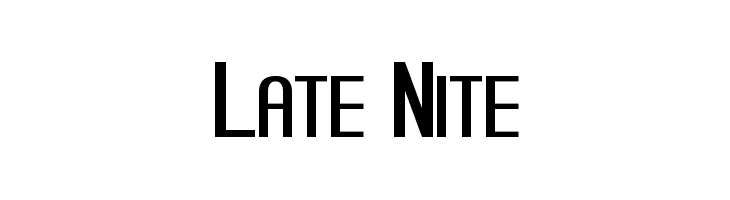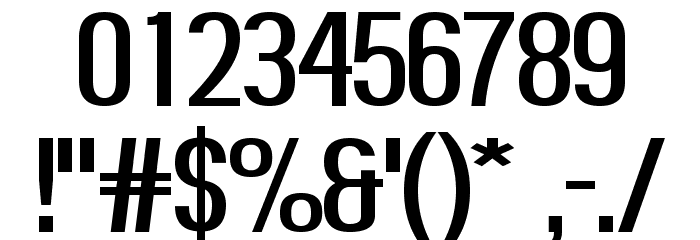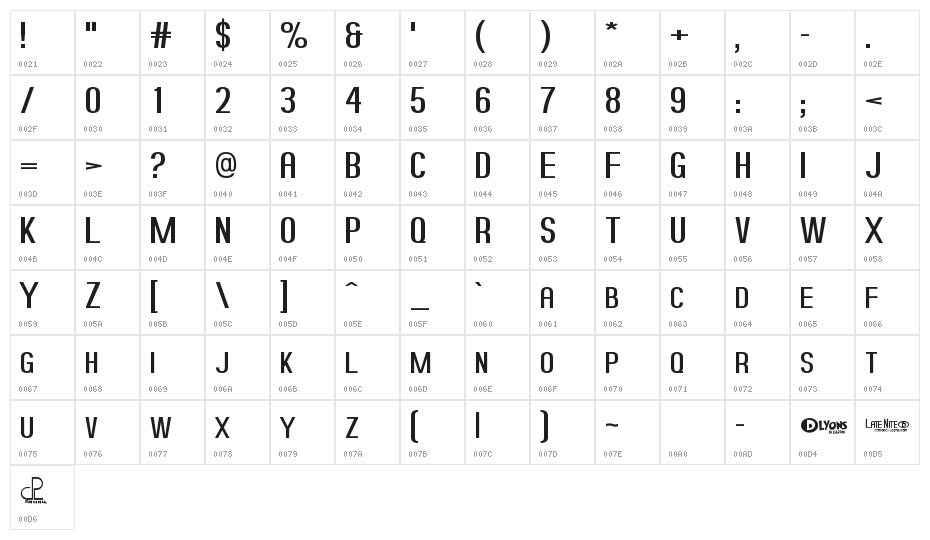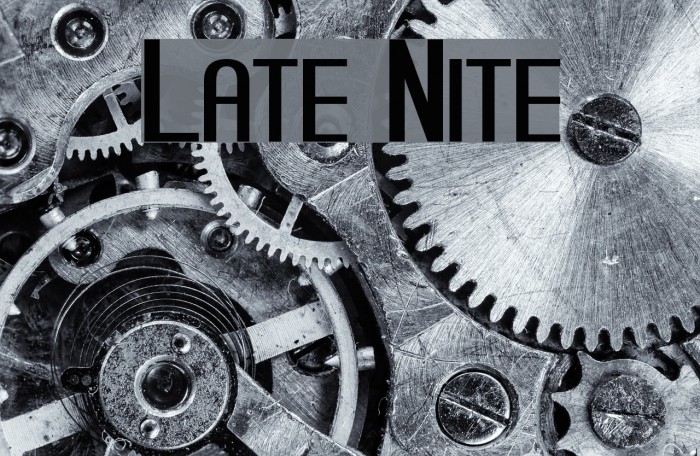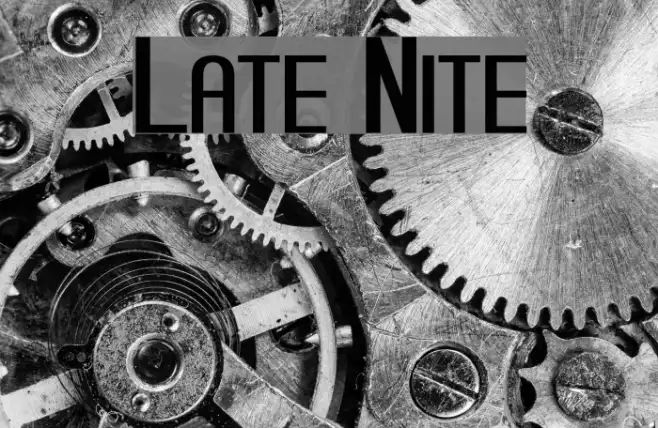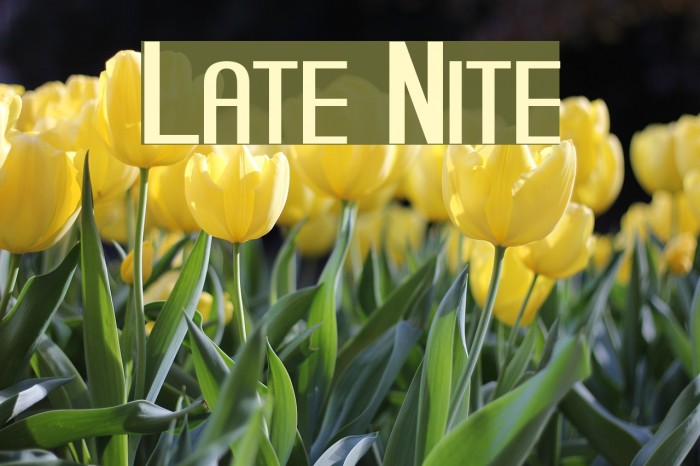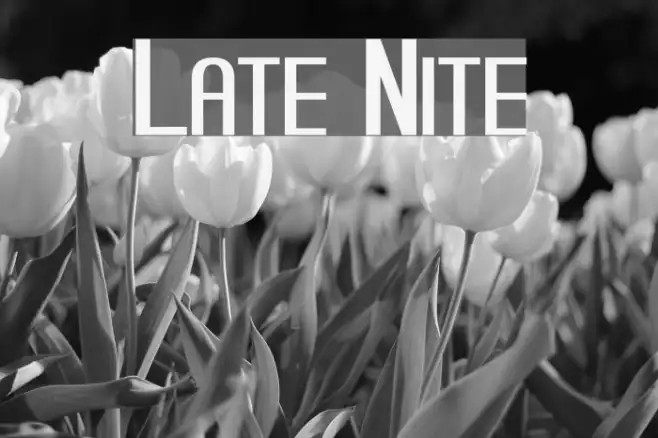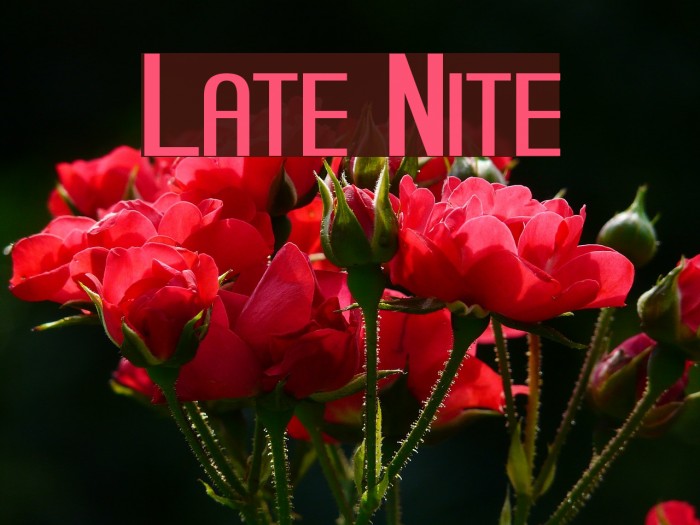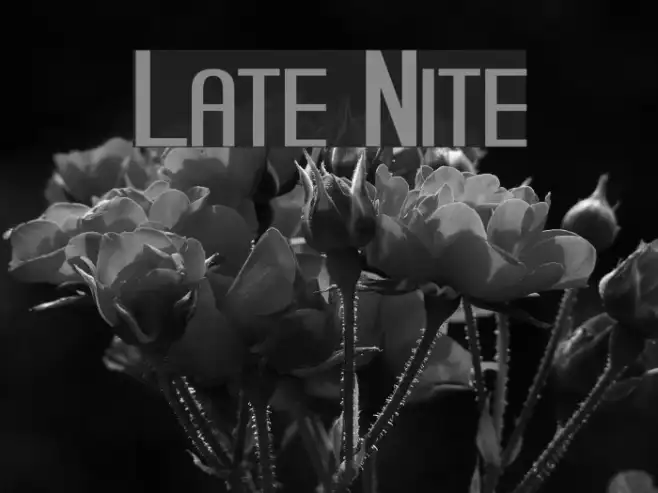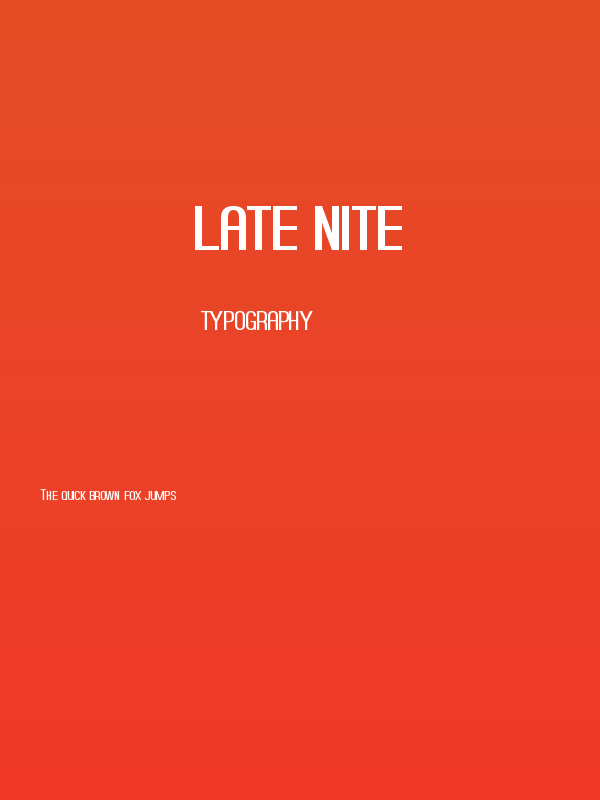
Late Nite Font
Late Nite Description
This font features a bold and modern design with a strong presence. The characters are tall and narrow, giving it a condensed appearance. The strokes are consistent in width, providing a uniform look across all letters and numbers. The uppercase and lowercase letters maintain a similar style, with clean lines and sharp edges. The numerals are clear and easy to read, matching the overall aesthetic of the alphabet. Special characters are included, maintaining the same bold and structured design. This font is ideal for making a strong visual impact.
| Proposed Projects | Ideal for headlines, posters, branding, and advertising where a strong visual impact is needed. |